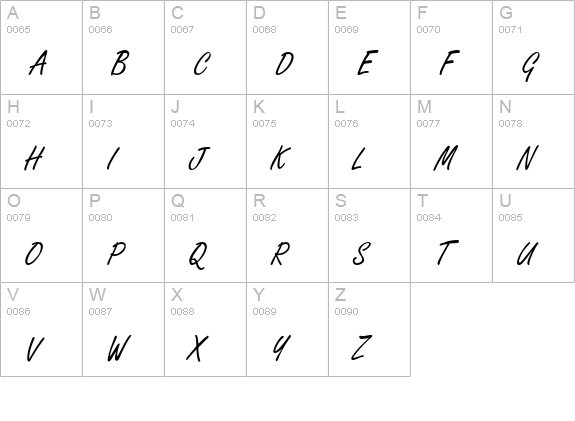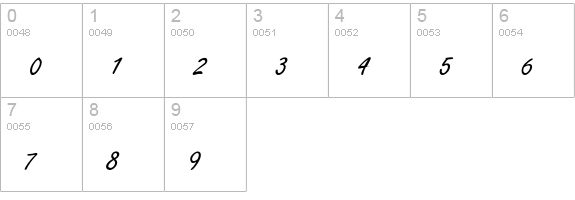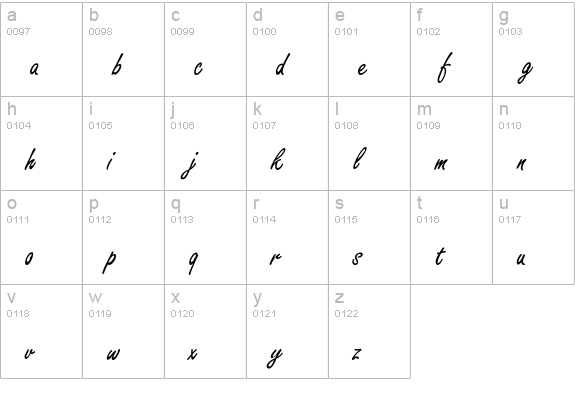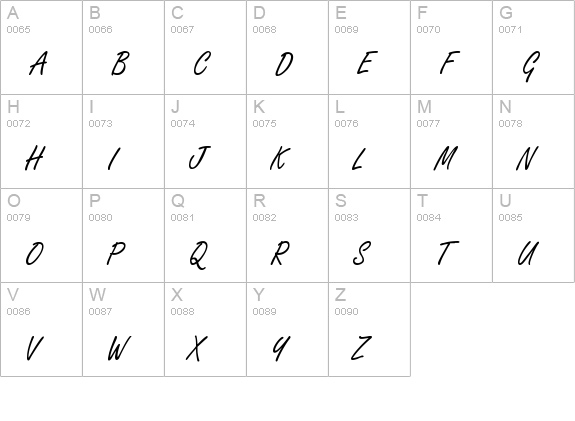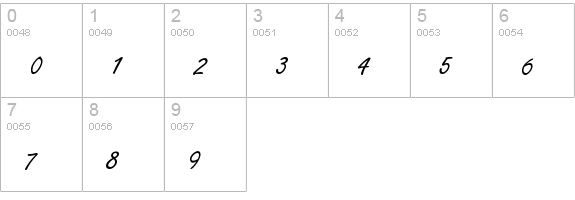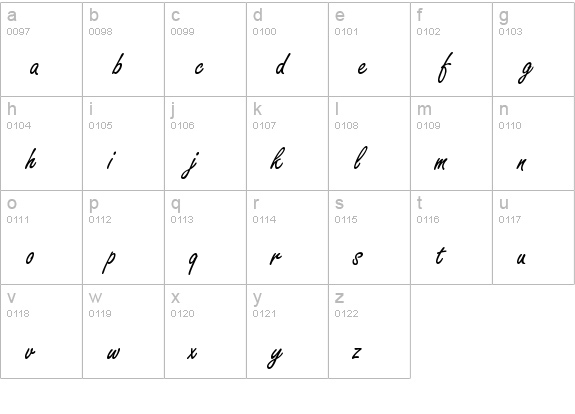
FreestyleScript-Thin is a delicate, low-contrast variant in the FreestyleScript typeface family \xE2\x80\x94 well suited to fashion editorial, minimal branding, and high-contrast display.
FreestyleScript-Thin font is a delicate and elegant typeface that brings a touch of sophistication to any design project. Its thin strokes and flowing lines give off a sense of grace and beauty, making it perfect for adding a stylish flair to invitations, cards, and other creative endeavors. What makes FreestyleScript-Thin font even more appealing is that it is available for free download at FontsMarket.com. This means you can easily access this stunning typeface without any cost, allowing you to bring a touch of class to your designs without breaking the bank. Download FreestyleScript-Thin font today and elevate your projects with its timeless charm and versatility.